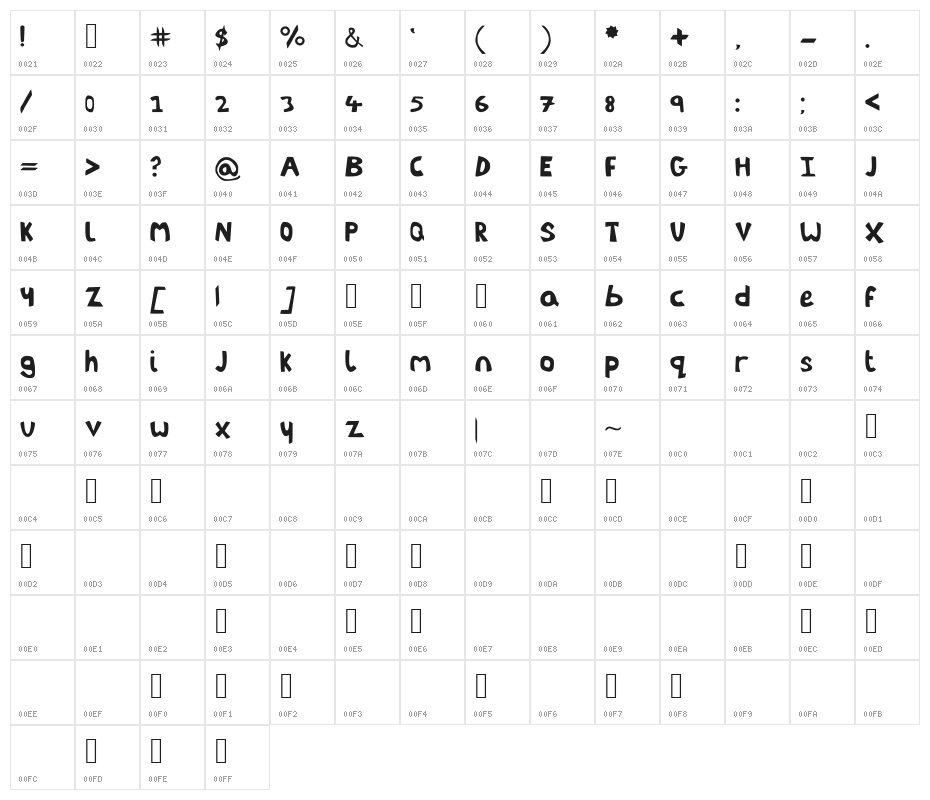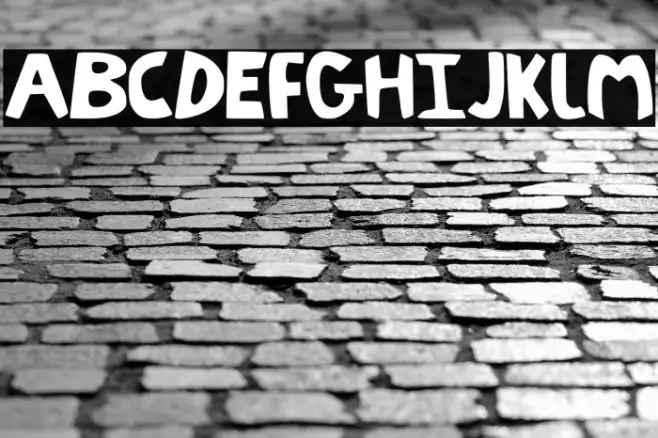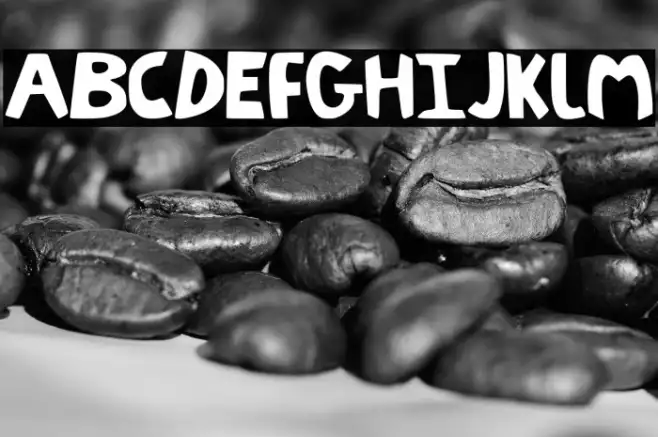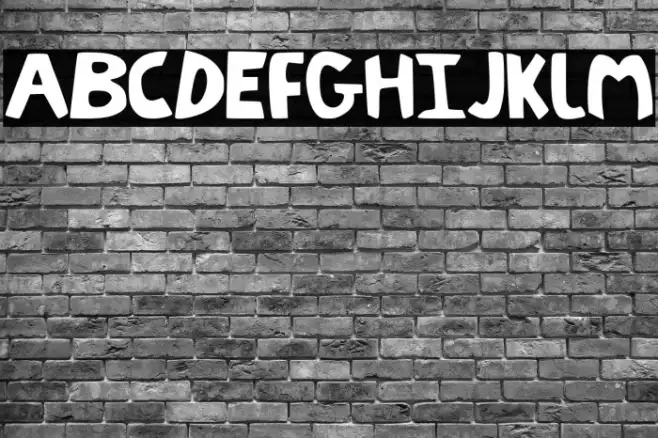
LittleEnvy Font
LittleEnvy Description
This playful and bold font features a hand-drawn, whimsical style with irregular and slightly exaggerated letterforms. The characters have a lively and informal appearance, making them ideal for creative and fun projects. The uppercase and lowercase letters maintain a consistent style, with rounded edges and a slight tilt that adds to the font's dynamic feel. The numbers and special characters are equally expressive, complementing the overall aesthetic. This font is perfect for projects that require a touch of personality and charm.
| Proposed Projects | Ideal for children's books, greeting cards, posters, and playful branding. |